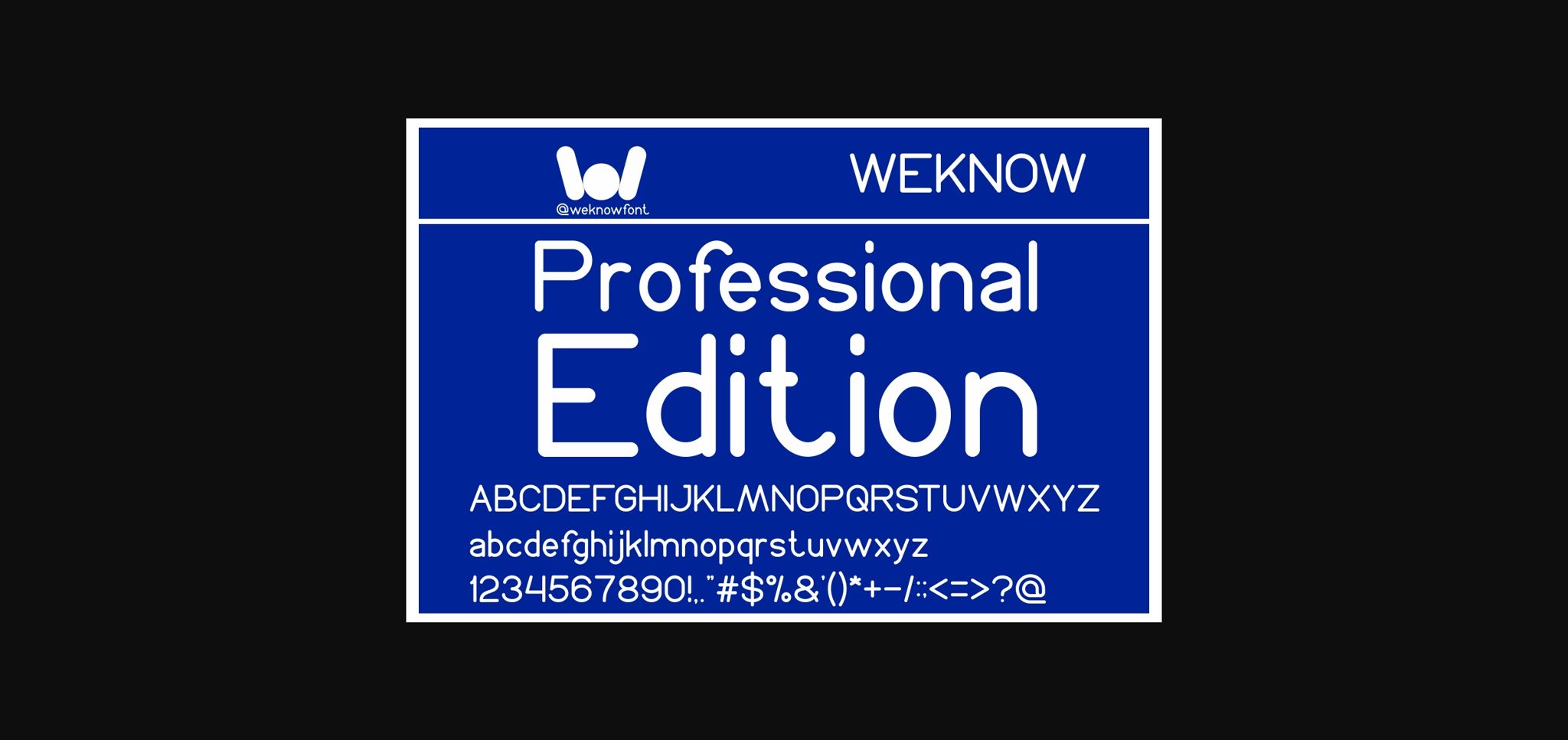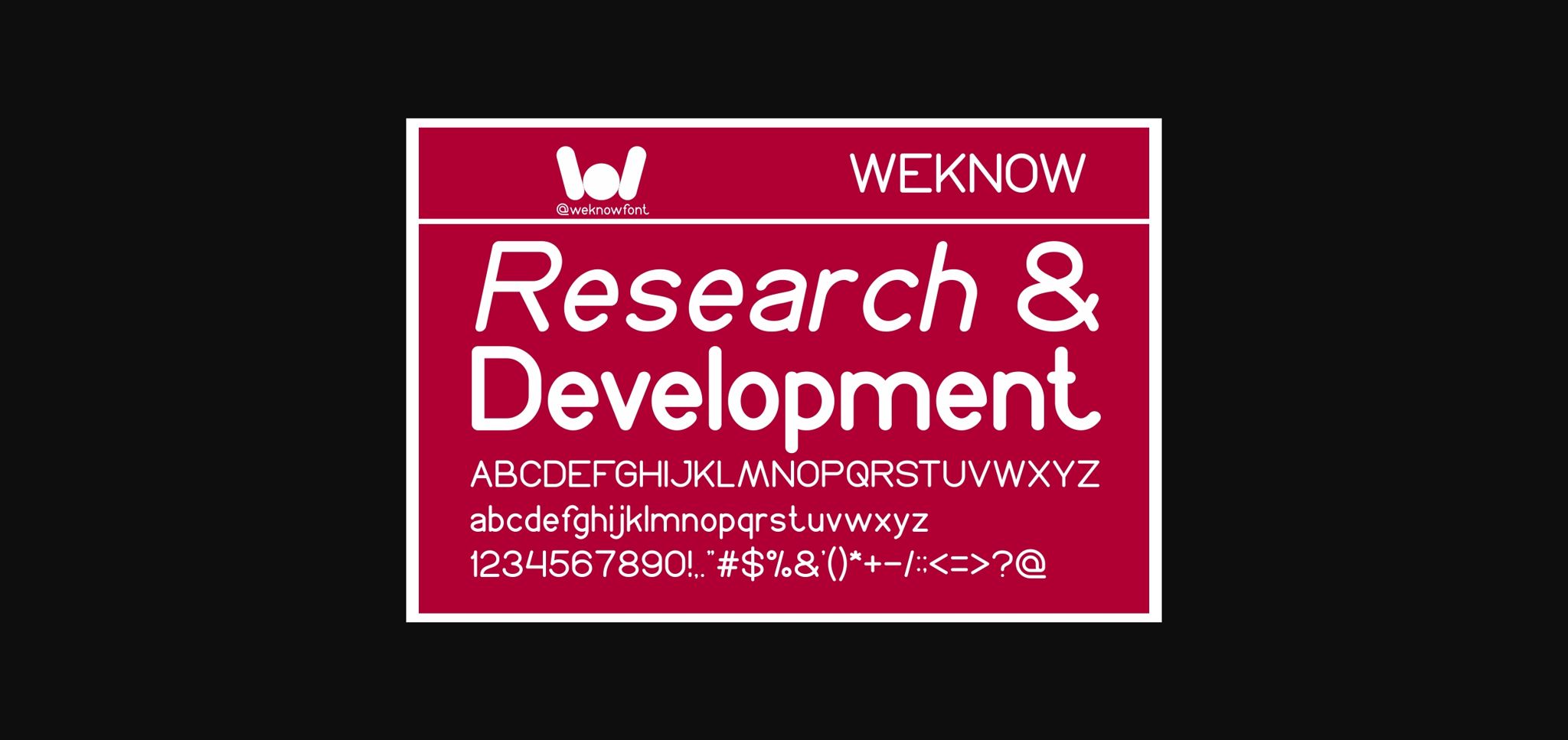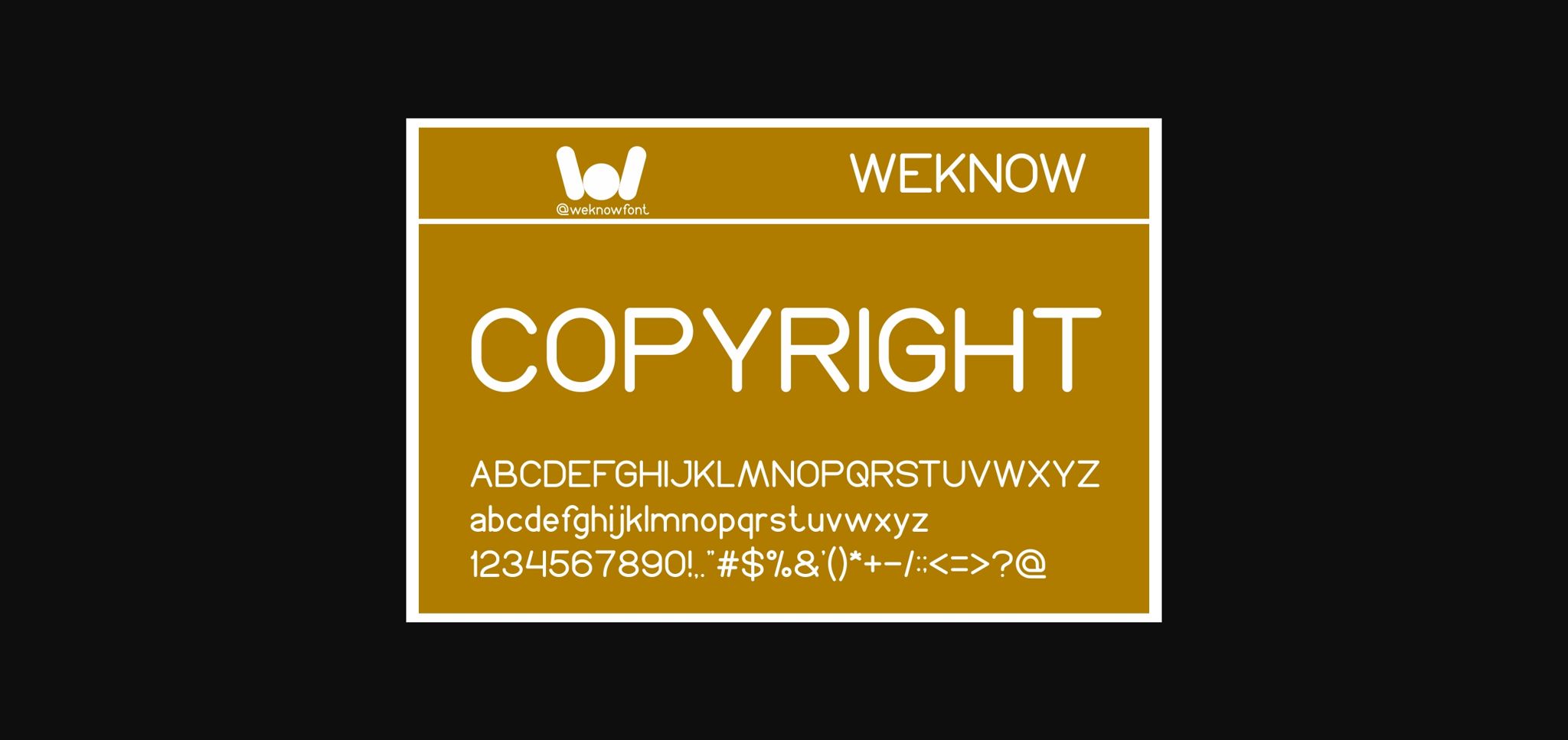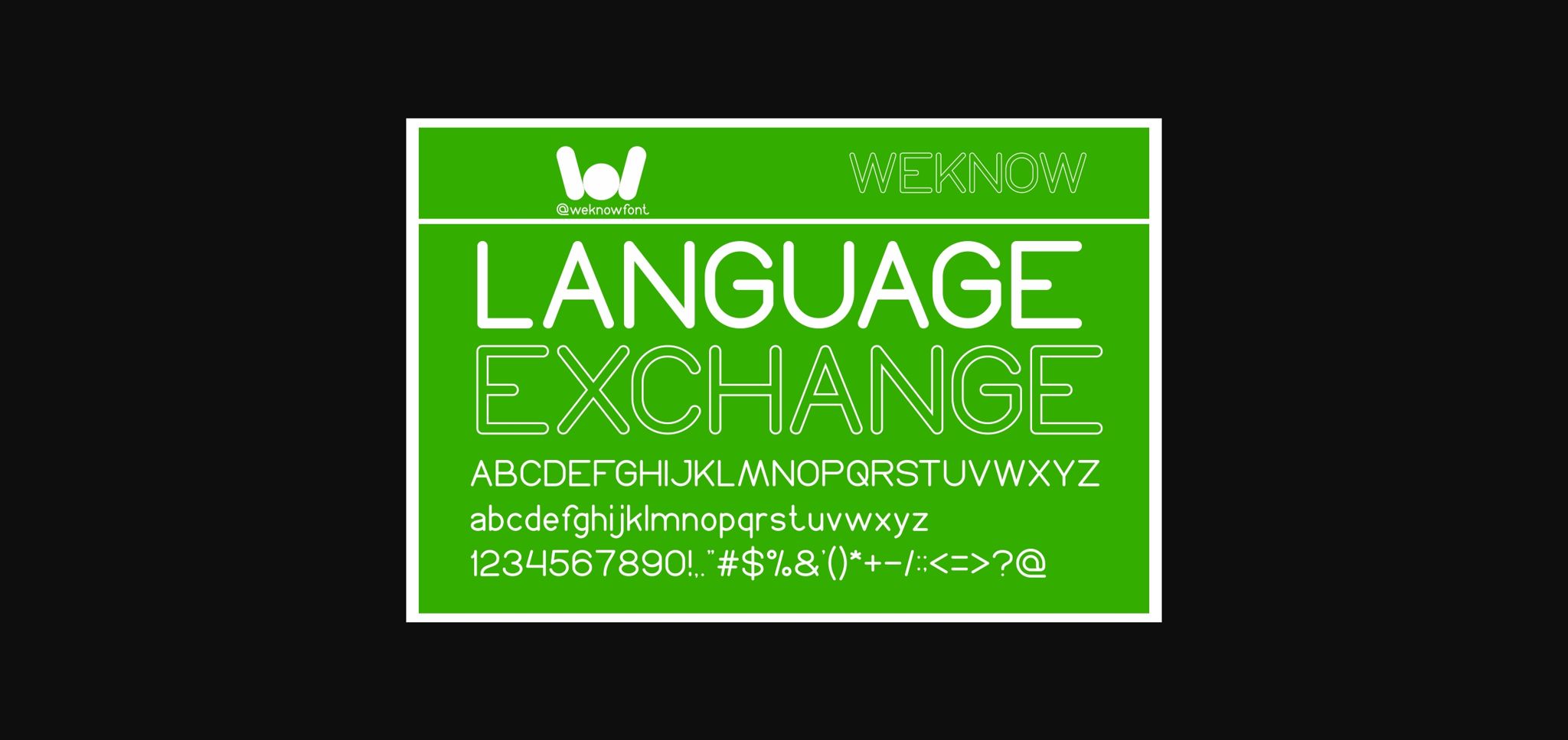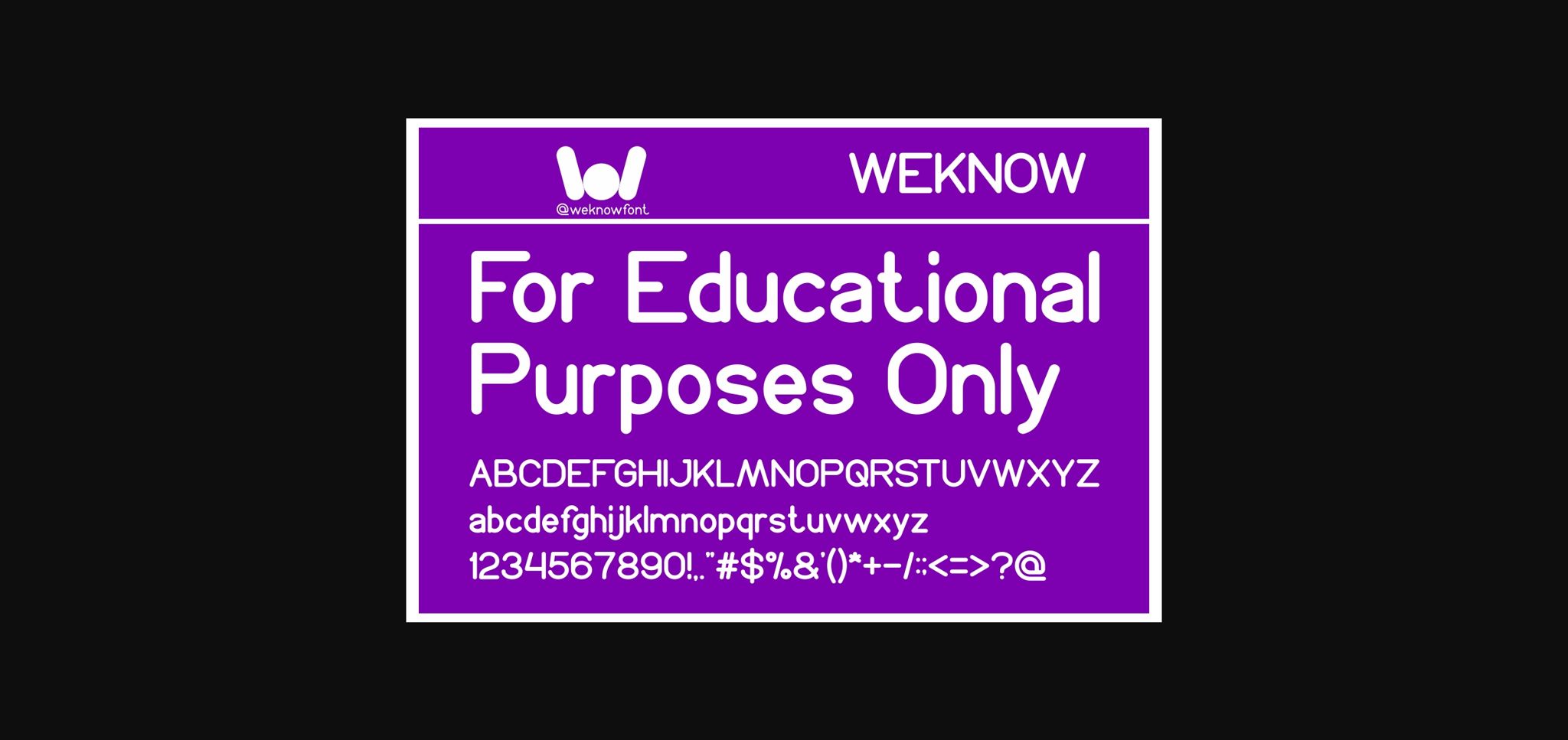
HomeSans Serif FontsProfessional Edition Font Sans Serif Fonts Professional Edition Font FacebookXPinterestWhatsApp 1 of 7 ... Professional Edition Font Poster 2... Professional Edition Font Poster 3... Professional Edition Font Poster 4... Professional Edition Font Poster 5... Professional Edition Font Poster 6... Professional Edition Font Poster 7... About Professional Edition Font Professional Edition is a minimal and neat sans serif font. It can easily be matched to an incredibly large set of projects, so add it to your creative ideas and notice how it makes them stand out! DOWNLOAD NOW People also explored The Salvador Delaware Pro Red Satanic Font Crusthi Ozaliea Font Silver Eye Font Autumn Fairy Font Katalia Handwritten Font Summerback Script Font Anthilla Font 280 0 TagsProfessional Edition Font Previous articleSweet Home FontNext articleBahagia Font LEAVE A REPLY Cancel reply Comment: Please enter your comment! Name:* Please enter your name here Email:* You have entered an incorrect email address! Please enter your email address here Website: Save my name, email, and website in this browser for the next time I comment. Personal Use Free My Ugly Handwritting Personal Use Free Read more about this font Sushi Stroke Personal Use Free Read more about this font Squealer Personal Use Free Read more about this font Hallo Betty Personal Use Free Read more about this font BLOG Free Fonts Risk: Why Free Fonts Can Be Dangerous for Designers Free Fonts Risk: Why Free Fonts Can Be Dangerous for Designers Using free fonts is a common practice in web and graphic design. However, the... Elegant Wedding Invitation Fonts – Handwritten & Script Fonts Free vs Paid Fonts: Why Investing in Premium Fonts Is Worth It To increase your work productivity, choose the most readable fonts.